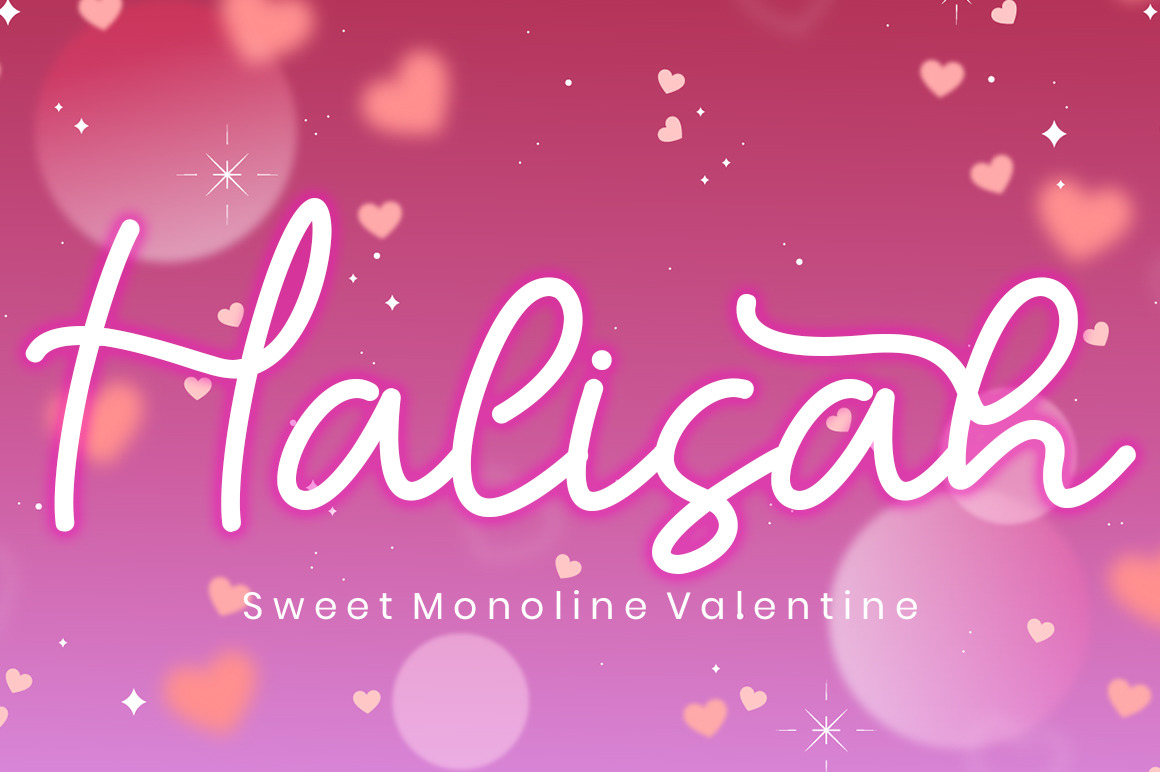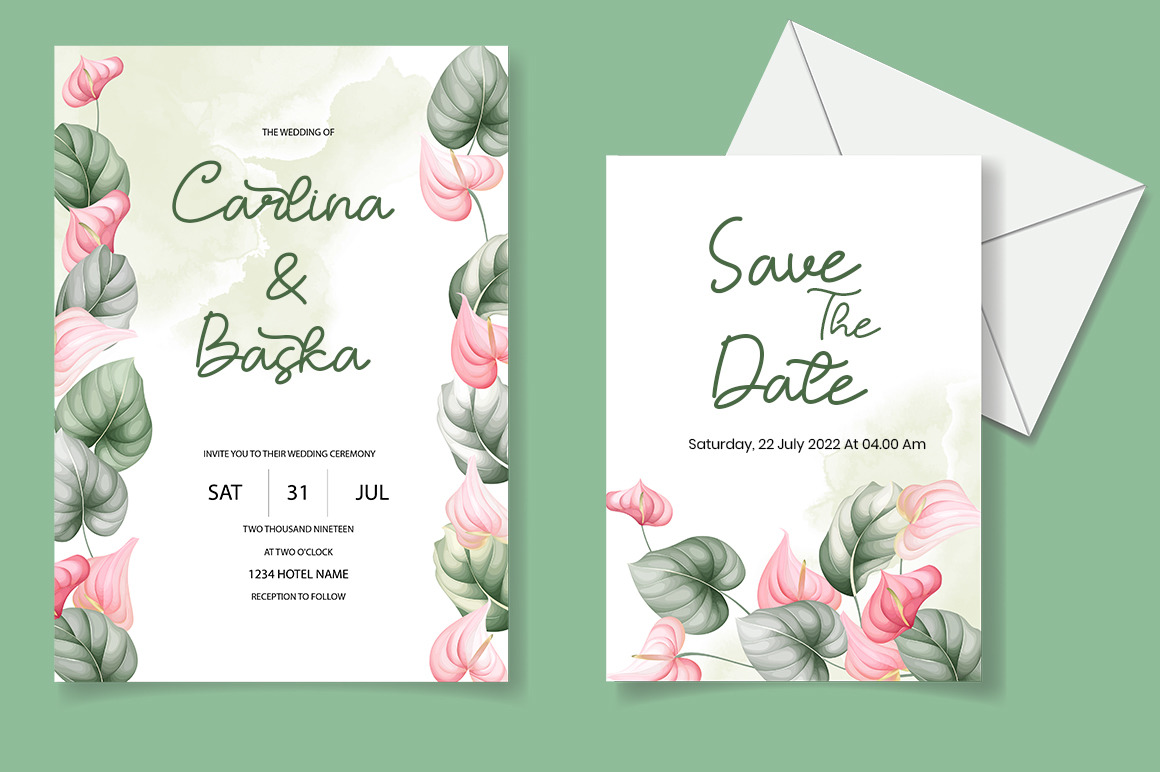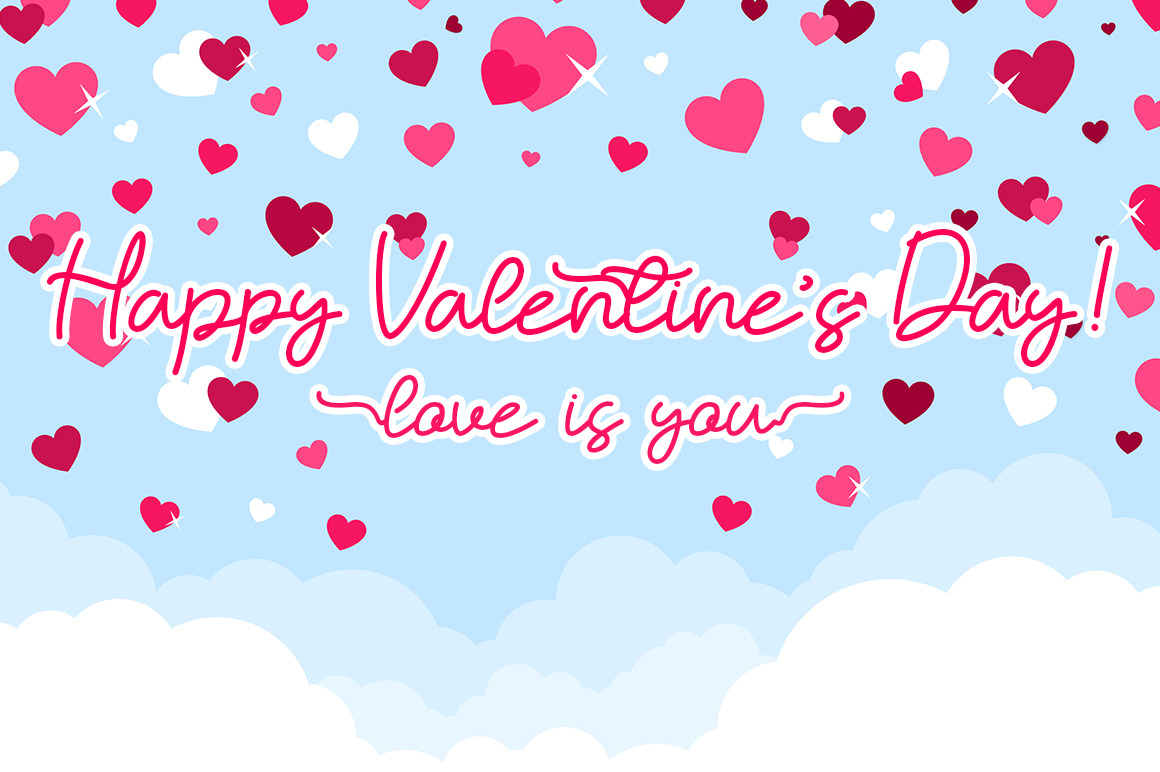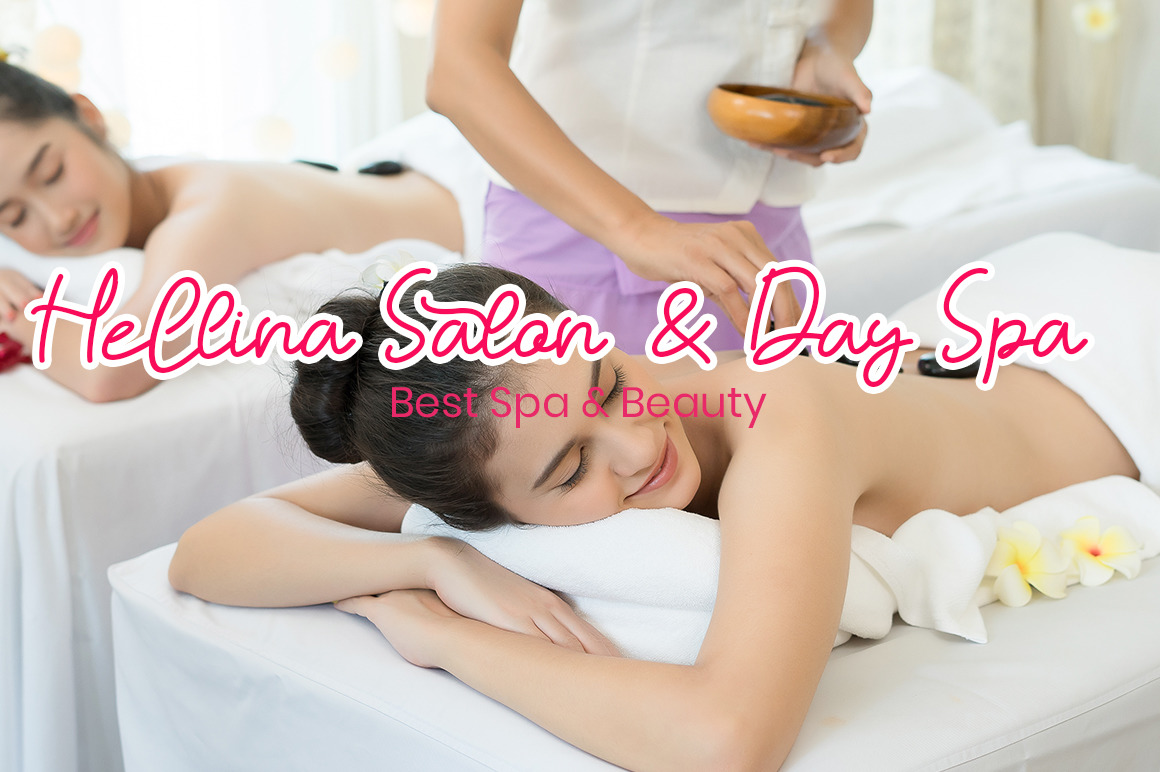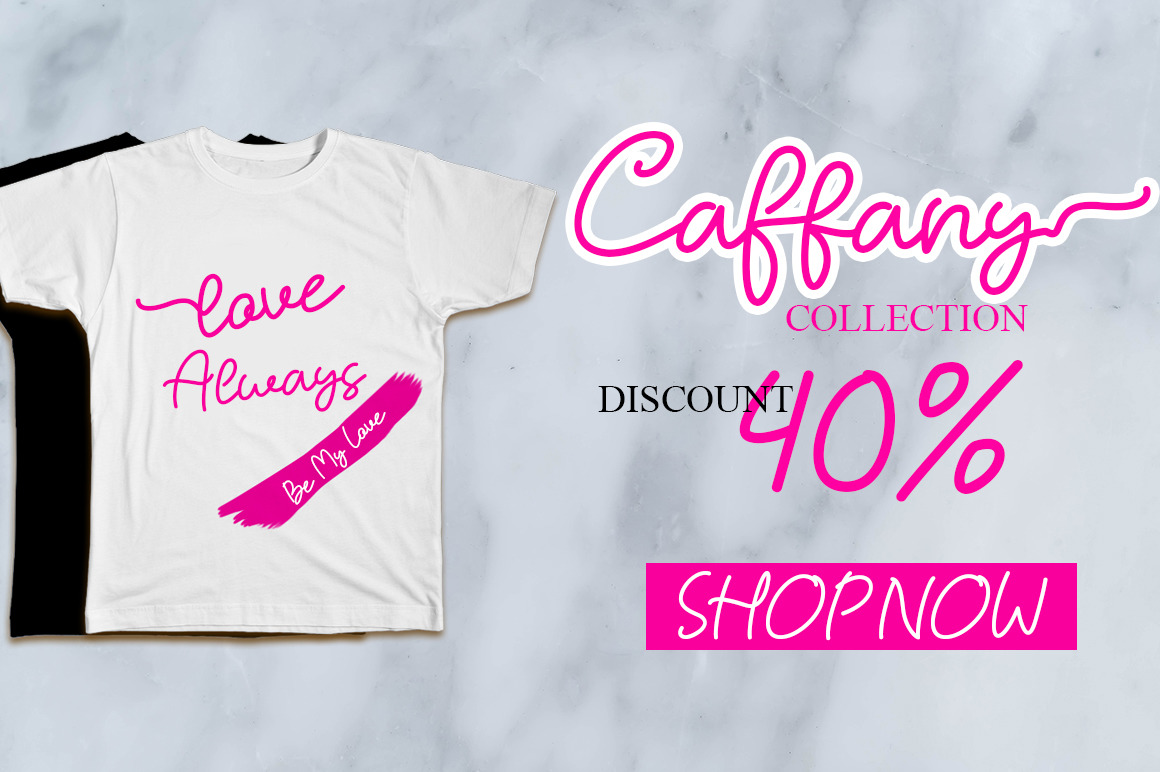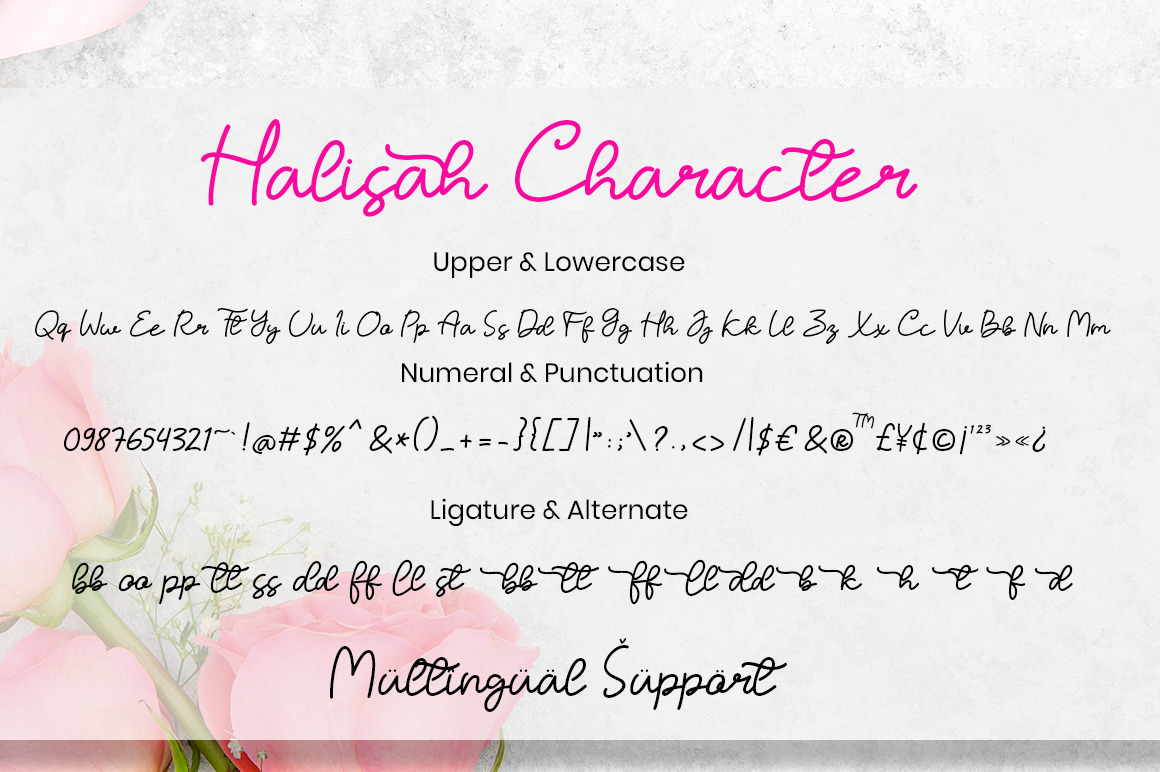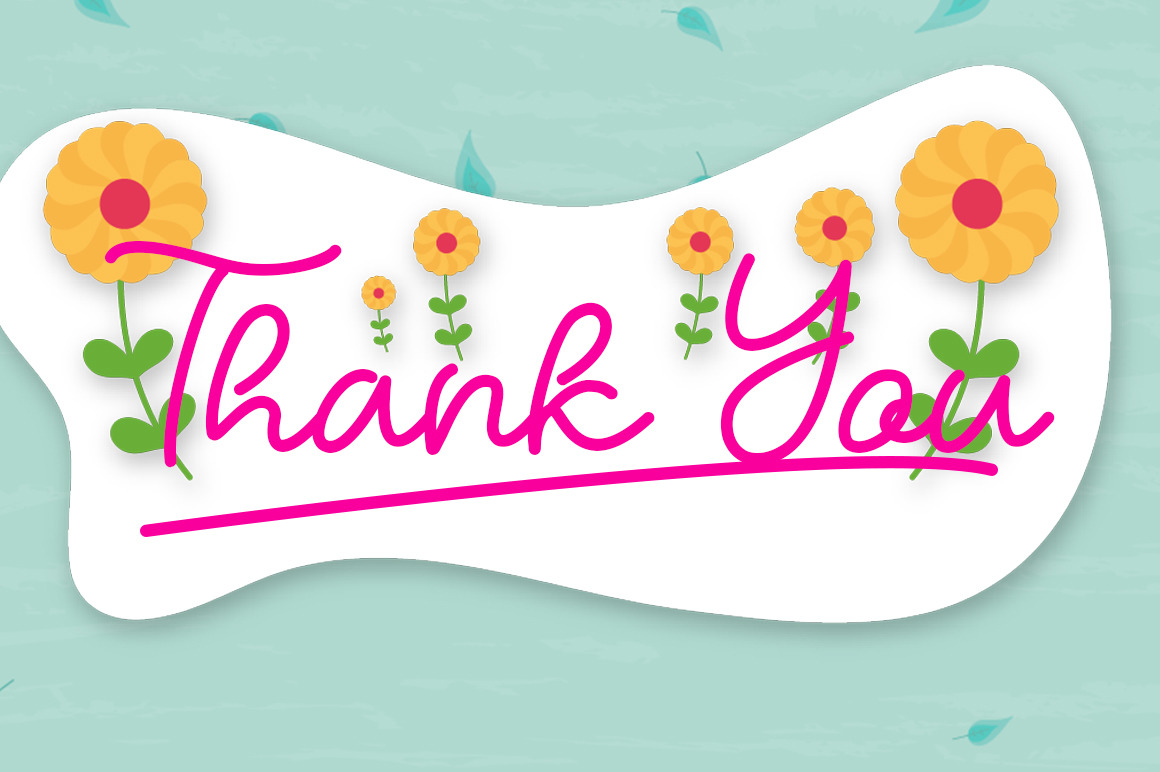
Halisah Font
Halisah is monoline script font which natural movement and elegant for valentine style.
Halisah perfect for branding projects, logo, wedding designs, social media posts, advertisements, product packaging, product designs, label, photography, watermark, invitation, stationery and any projects that need handwriting taste.
• Ligature
• Fonts include multilingual support for; ä ö ü Ä Ö Ü ß ¿ ¡